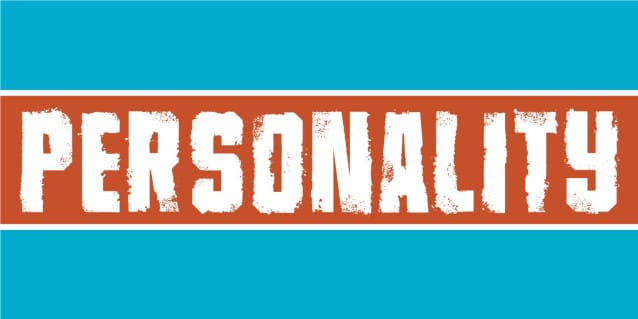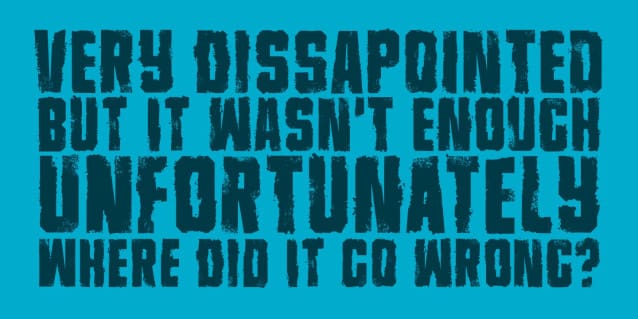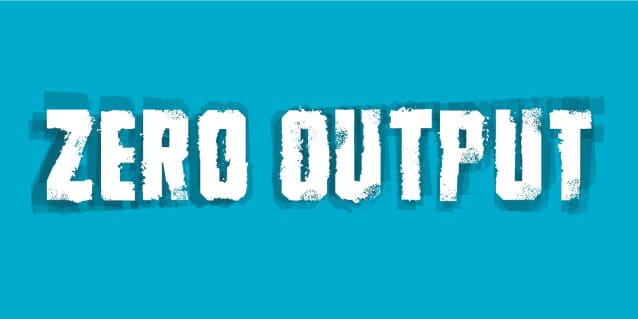
Zero Output Font
Zero Output Font – You may recognize the shapes of this font – it’s because it’s my Universitet font, but this time it took some beating, and turned into a grunge font! The output was Zero Output! It has 5 different versions of each letter and of course multilingual support! Go ahead and grunge up your next project!